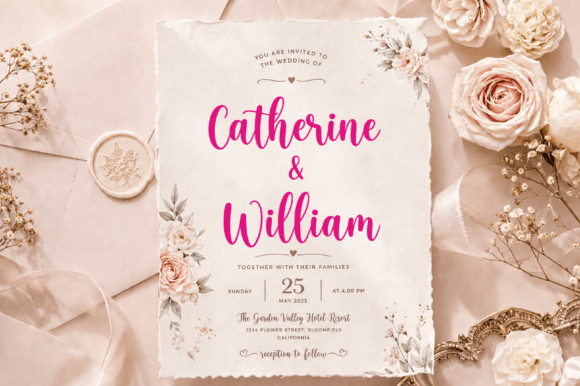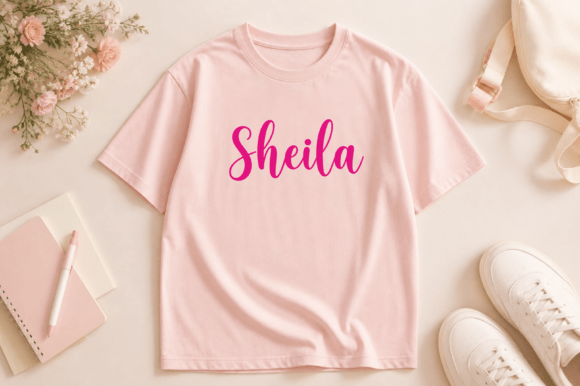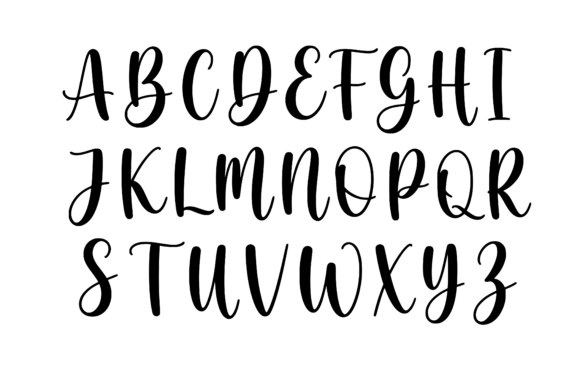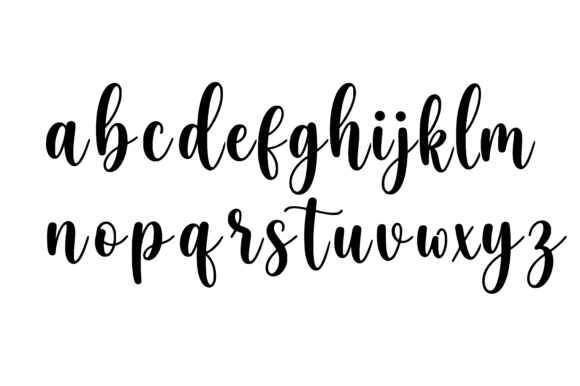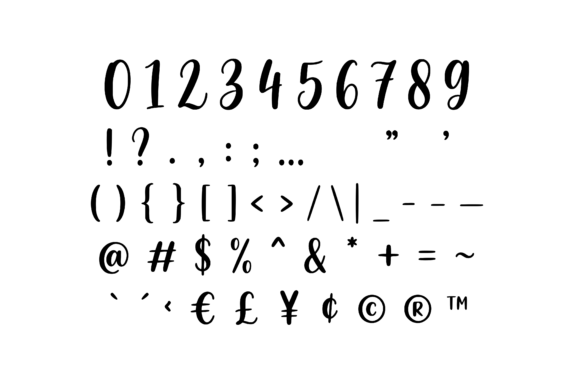
Introducing Bavella Font: Elevate Your Designs with Elegance and Whimsy
In the world of typography, few fonts manage to strike a balance between sophistication and playfulness. Bavella Font is one such gem that effortlessly combines charm, creativity, and a touch of luxury, making it an indispensable addition to any designer’s toolkit. This stunning, contemporary script font is designed to elevate your designs to new heights, whether you’re working on logos, branding, wedding invitations, or product packaging.
The Unique Characteristics of Bavella Font
Bavella Font boasts fluid strokes with carefully alternating thick and thin lines, creating a dynamic and visually appealing effect. Its exquisitely shaped curves add a level of sophistication, while the font’s overall design retains a sense of fun and whimsy. One of the standout features of Bavella is its distinctive swashes that dance across both uppercase and lowercase characters, giving it a lavish, feminine, and up-to-the-minute aesthetic.
Bavella’s versatility makes it suitable for a wide range of design projects. Here are some ways you can use this beautiful font to enhance your work:
- Logos and Branding: Add a touch of luxury and sophistication to your brand identity with Bavella’s elegant script.
- Wedding Invitations: Bring a romantic flair to your wedding stationery and make your invitations truly unforgettable.
- Artful Quotes: Inspire your audience with beautifully crafted quotes that showcase Bavella’s stunning curves and swashes.
- Product Packaging: Elevate your product packaging with a stylish touch that sets your brand apart.
- Social Media Content: Make your social media posts stand out with Bavella’s unique and captivating aesthetic.
- Posters and Headlines: Create eye-catching posters and headlines that grab attention and leave a lasting impression.
Crafting with Bavella: Compatible with Cricut and Silhouette
For craft enthusiasts, Bavella Font is a dream come true. This font is compatible with popular cutting machines like Cricut and Silhouette, ensuring that you can add the perfect flourish to your projects. Whether you’re creating custom vinyl decals, iron-on designs, or paper crafts, Bavella’s intricate details and beautiful swashes will bring your creations to life.
Why Choose Bavella Font?
With so many fonts available, why choose Bavella? Here are a few compelling reasons:
- Unique and Exclusive: Bavella’s one-of-a-kind design ensures that your projects will stand out from the crowd.
- High-Quality Design: Crafted with attention to detail, Bavella offers a level of quality that’s hard to find in modern fonts.
- Versatile: From luxury branding to whimsical crafts, Bavella adapts to any design need.
- Elegant and Playful: This font strikes the perfect balance between sophistication and playfulness, making it ideal for a wide range of projects.
Bavella Font is more than just a script font; it’s a design statement. Its unique blend of elegance, whimsy, and luxury makes it an essential tool for designers and crafters looking to elevate their work. Whether you’re creating stunning logos, romantic wedding invitations, or stylish product packaging, Bavella is the perfect choice. Explore the possibilities with Bavella Font and discover a world of creative potential at your fingertips.